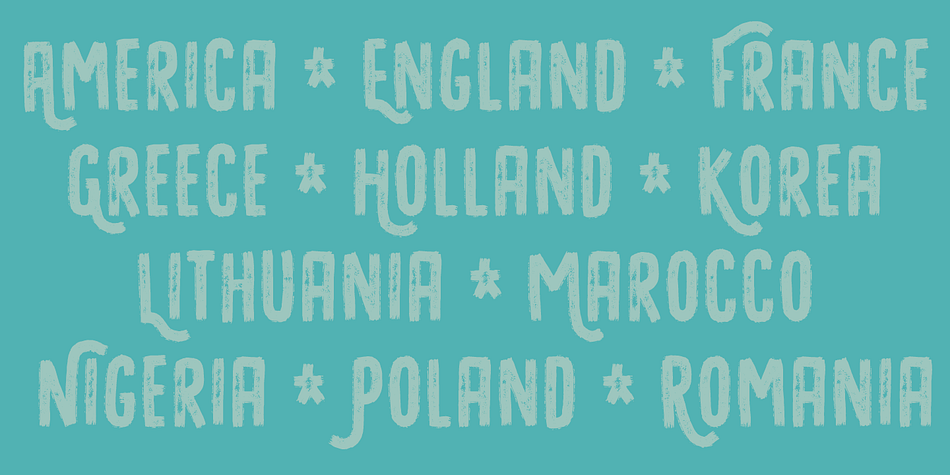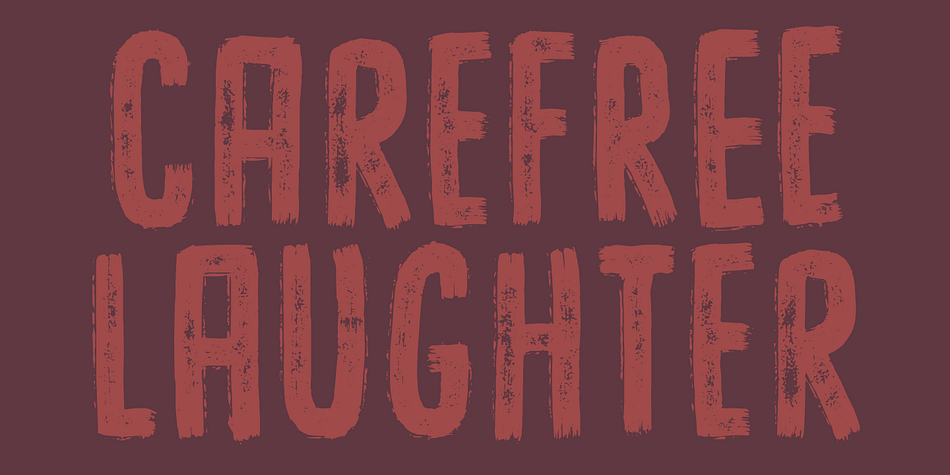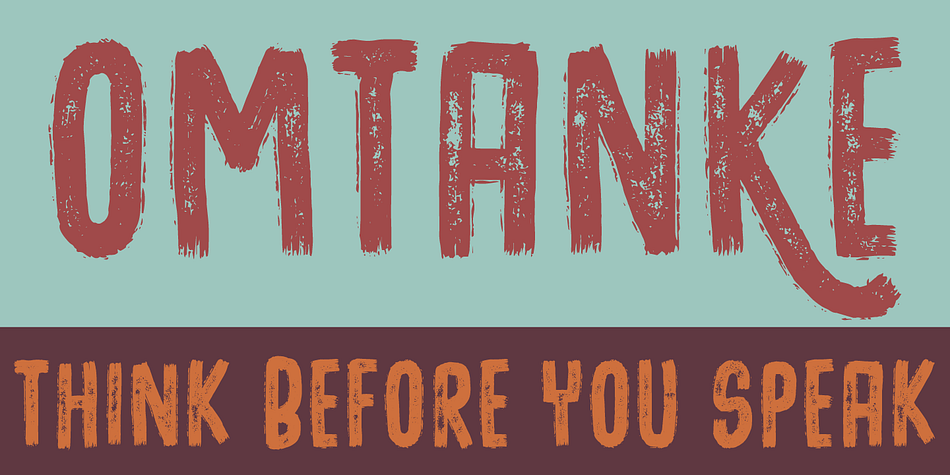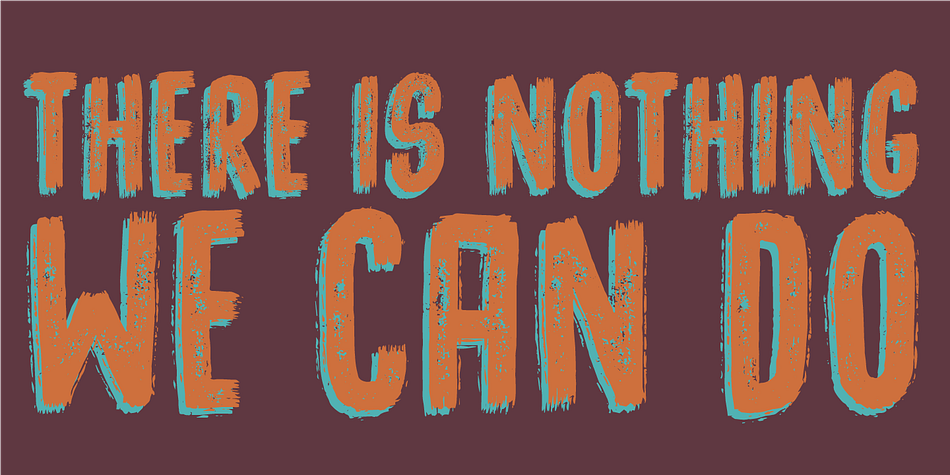
Designed by Jakob Fischer, Omtanke is a brush display and hand display font family. This typeface has two styles and was published by Pizzadude.dk.
Always think before you speak! Thats the whole idea about Omtanke! A crunchy and grungy font by Jakob Fischer aka pizzadude!
Fancy swashes and ligatures for double letters included!